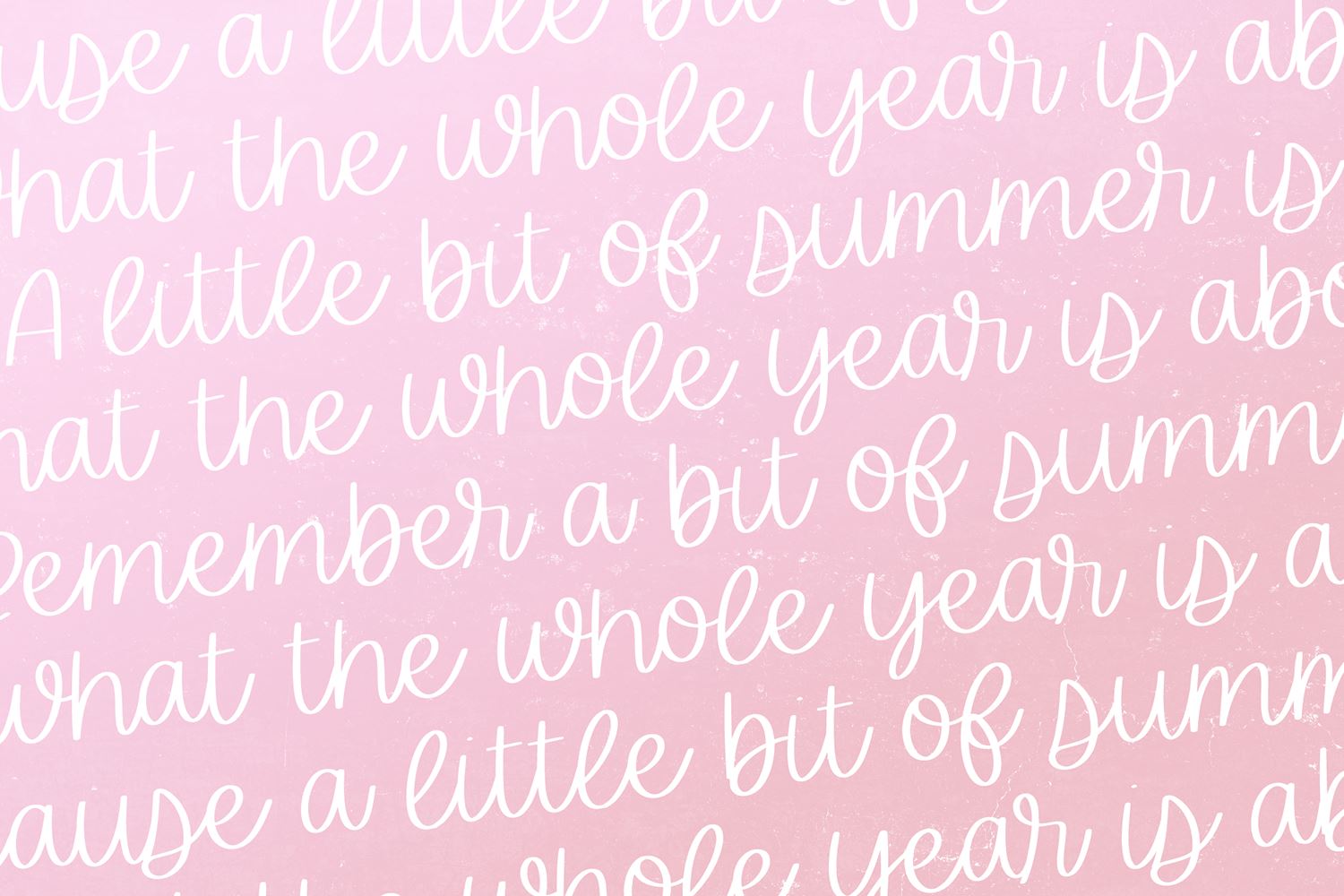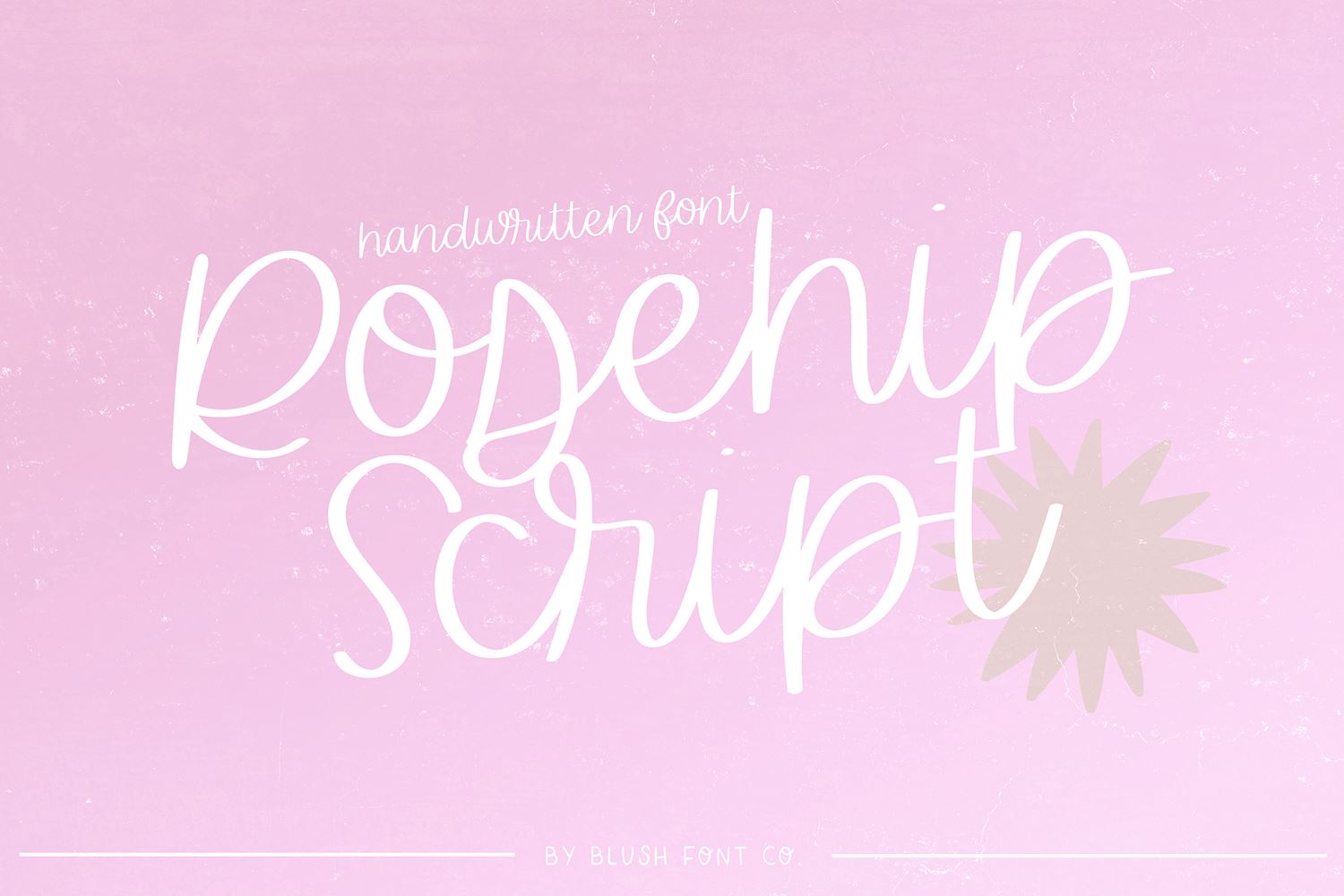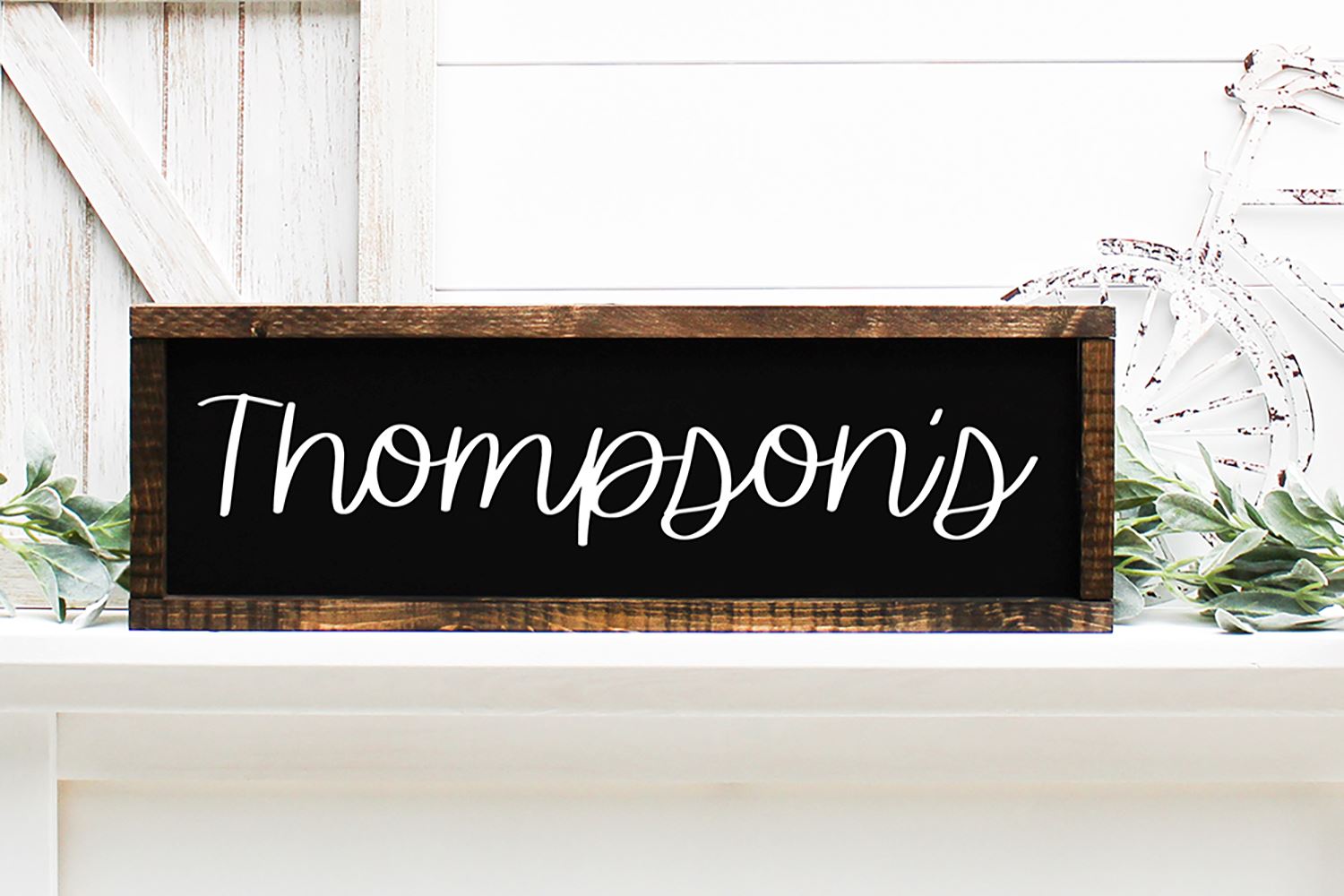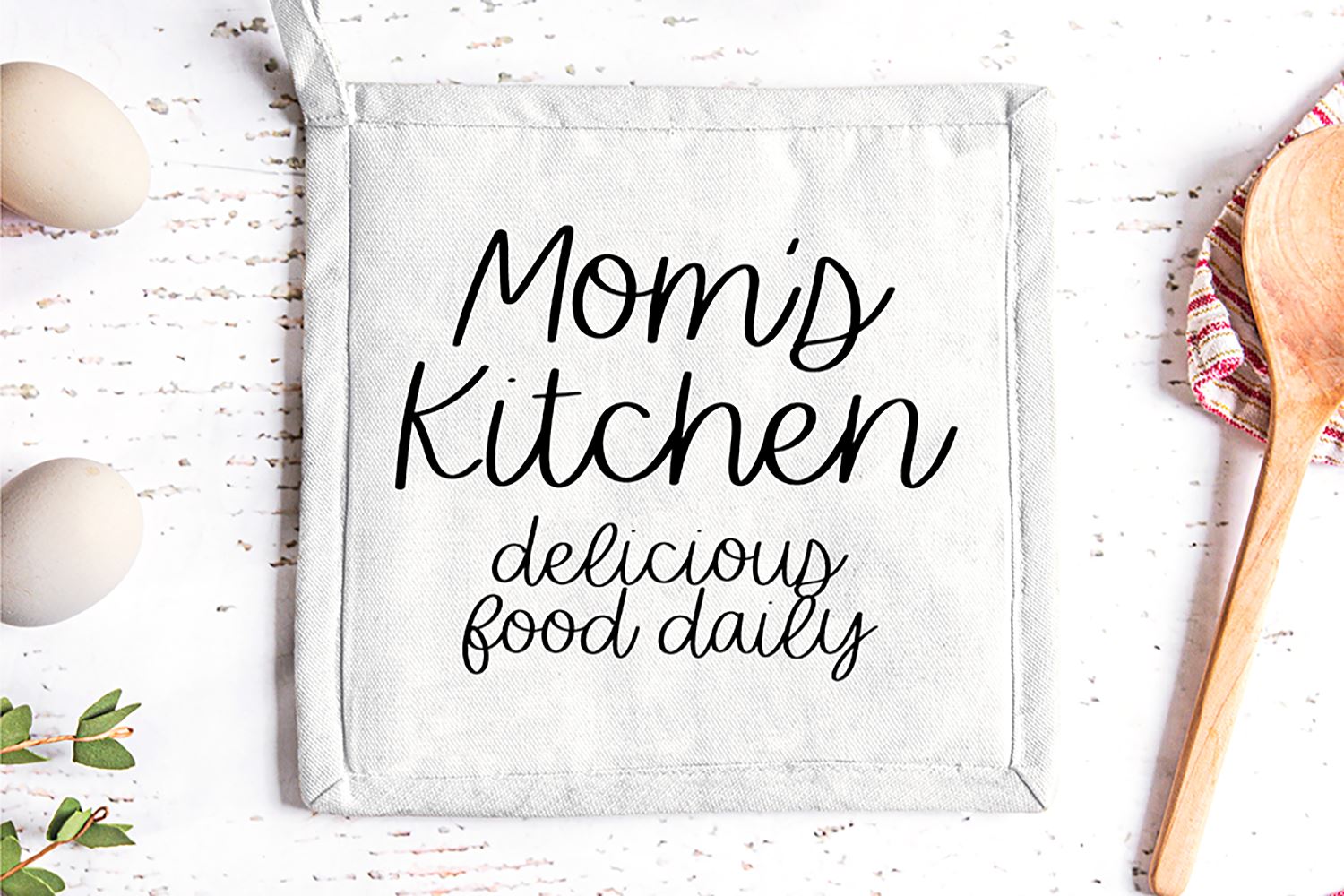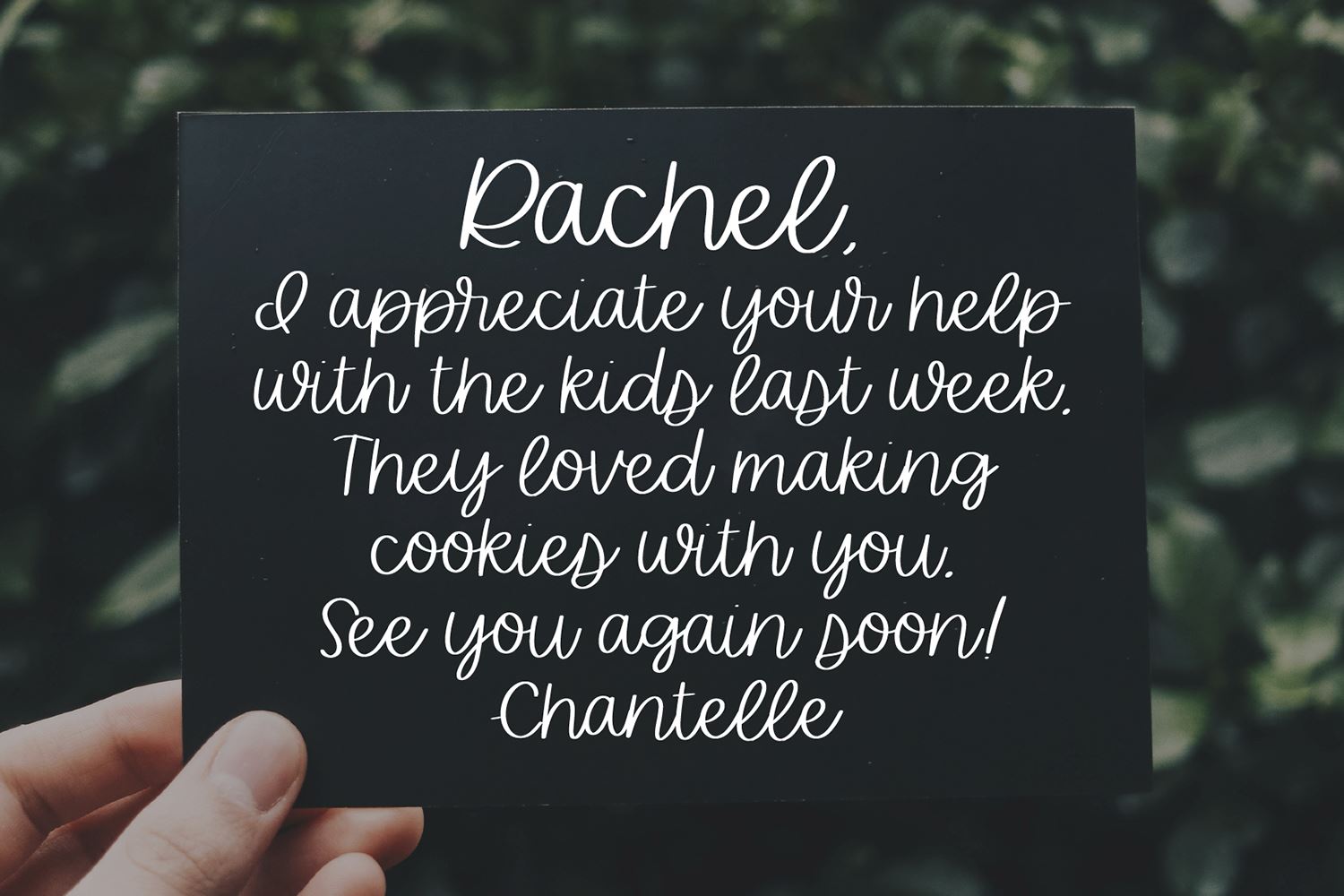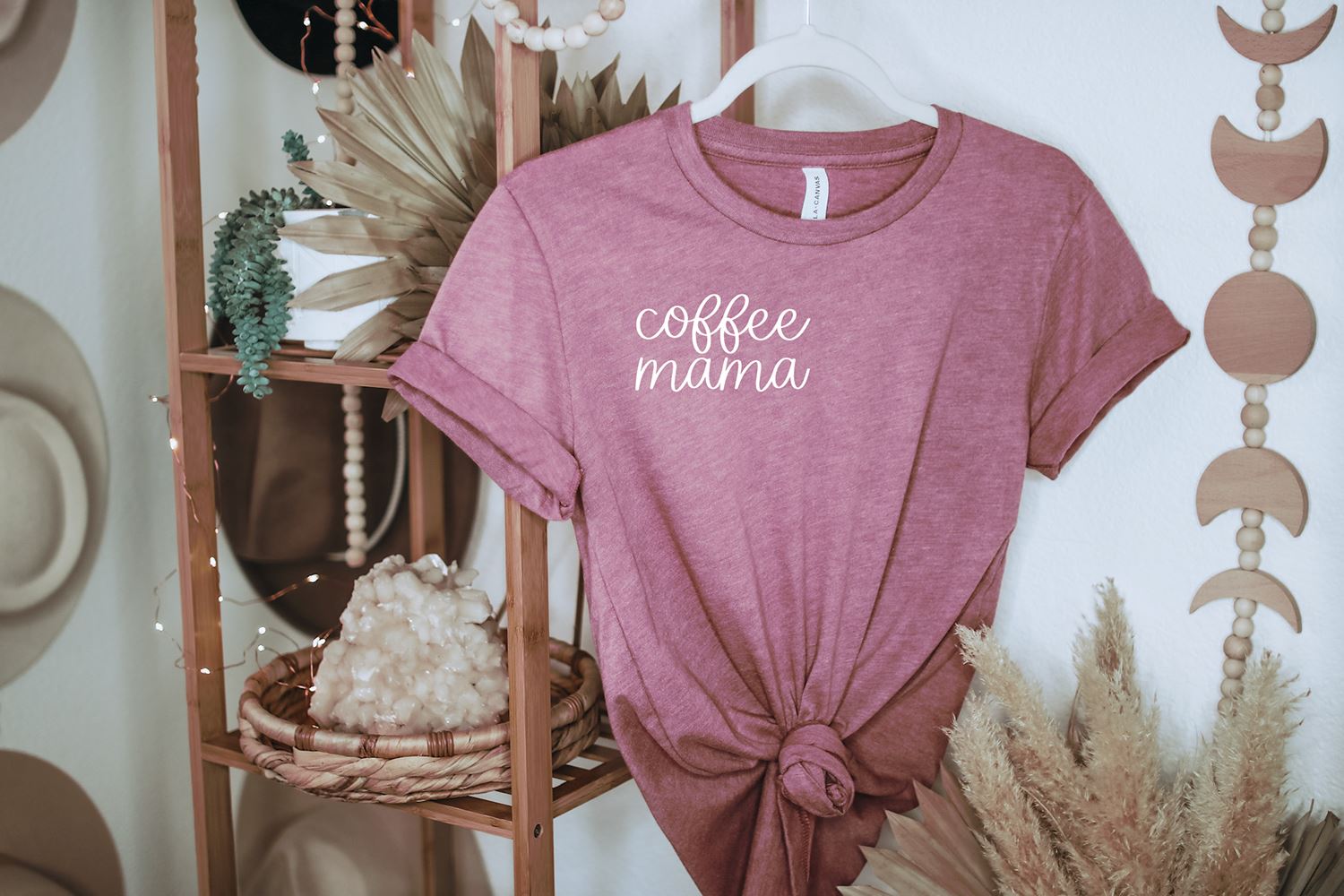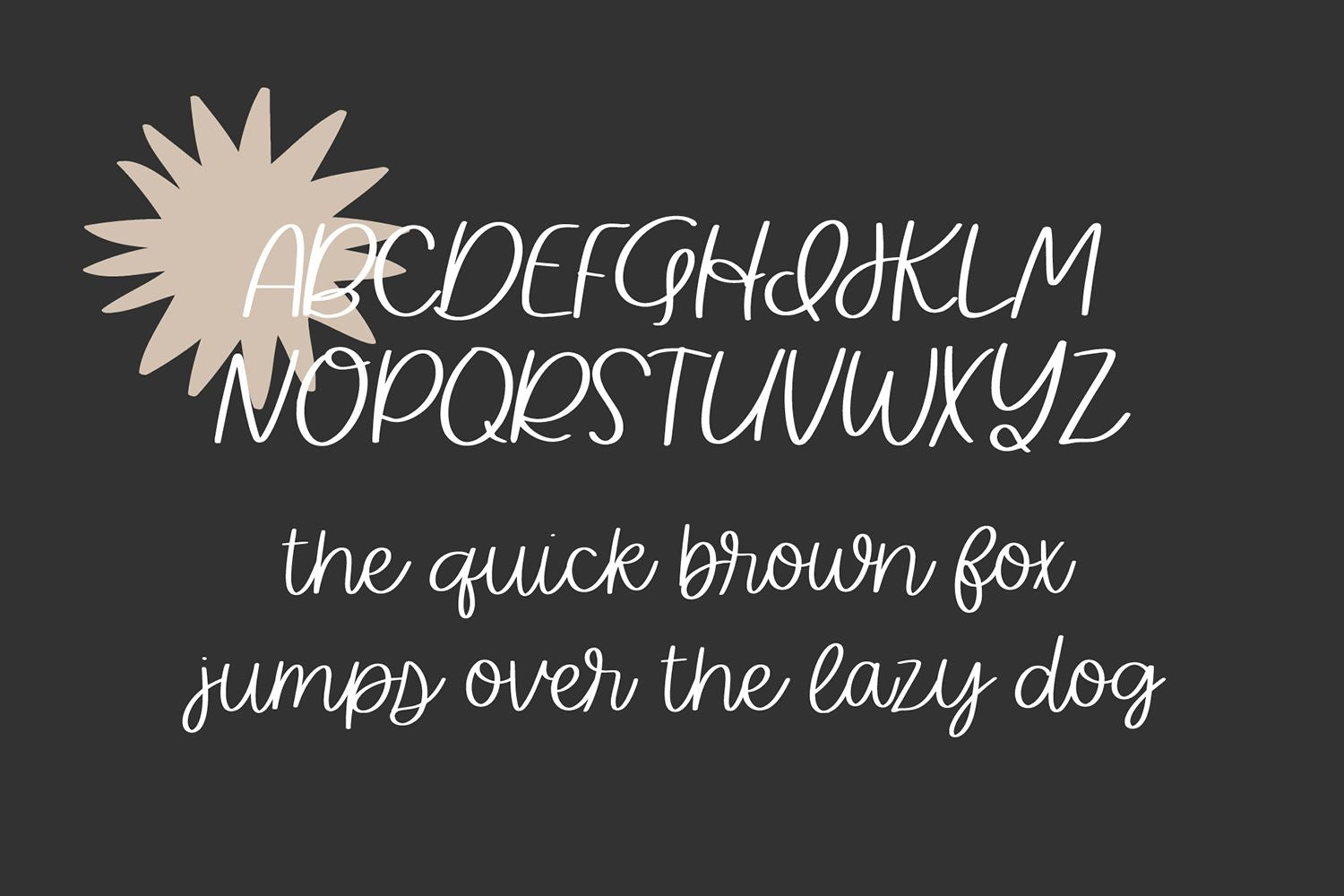
HomeScript FontsRosehip Script Brush Handwritten Font Script Fonts Rosehip Script Brush Handwritten Font FacebookXPinterestWhatsApp 1 of 7 ... ... ... ... ... ... ... About Rosehip Script Brush Handwritten Font \”Rosehip Script\” signature brush script font. This font is a whimsical brush font that is perfect for social media or crafty projects. Thanks! DOWNLOAD NOW People also explored Smithen Font Duo Yoshieka Diveshorts Font Dear Flora Font La Jolla Font Belgista Font Feeling Free Being Me Font Patrez Font Break Stones Font 252 0 TagsRosehip Script Brush Handwritten Font Previous articleFalling Lights / Signature FontNext articleCute and Crafty Font Bundle – 20 Fonts For Crafters LEAVE A REPLY Cancel reply Comment: Please enter your comment! Name:* Please enter your name here Email:* You have entered an incorrect email address! Please enter your email address here Website: Save my name, email, and website in this browser for the next time I comment. Personal Use Free Hatchill Personal Use Free Read more about this font New Normal Personal Use Free Read more about this font Color Personal Use Free Read more about this font Hello, How Are You? Personal Use Free Read more about this font BLOG Where to Buy American Fonts Online in 2024 Where to Buy American Fonts Online: The Ultimate Guide for 2024 Looking for the perfect American font to elevate your design projects? You're in the... How to Install and Use Fonts on Windows, macOS, and Web Projects Top 10 Handwritten Fonts That Elevate Your Designs Using Fonts in Digital Marketing: Tips to Strengthen Your Brand Identity